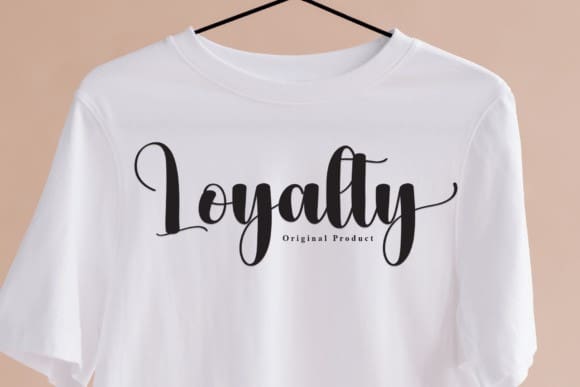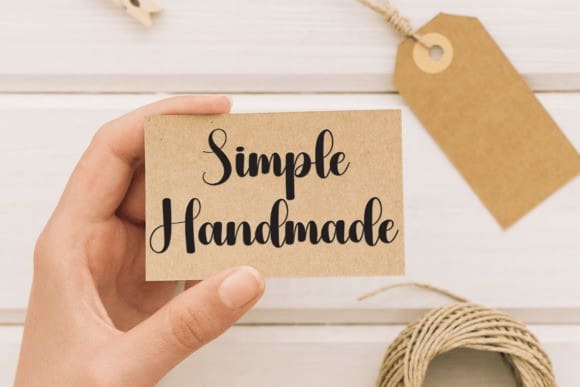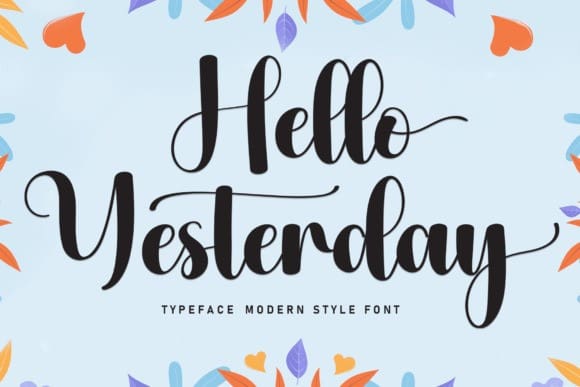
Hello Yesterday Font
Hello Yesterday Font, is a sweet and friendly handwritten font. Its natural and unique style makes it incredibly fitting to a large pool of designs. The only limit is your imagination!